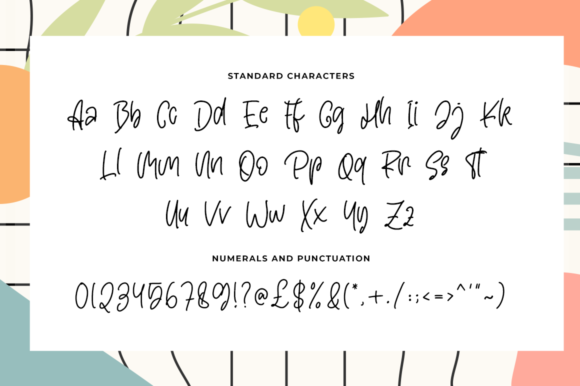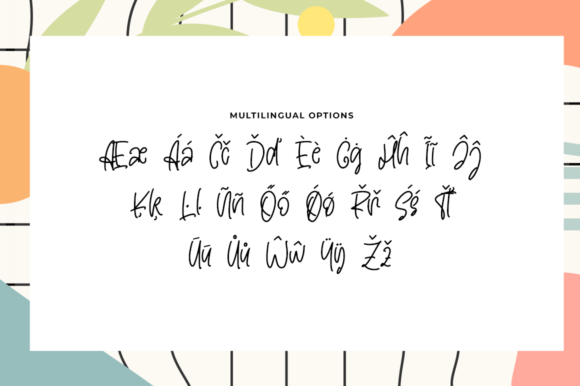
About Smartgeek Font
Smartgeek is a cool and asymmetrical handwritten font. It will turn any creative idea into a true standout. Get inspired by its childlike playfulness, and use it to brighten up any kids and school project!